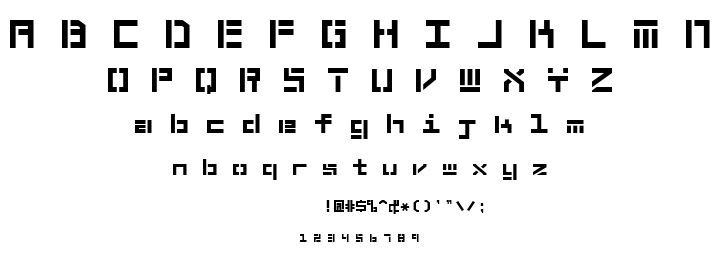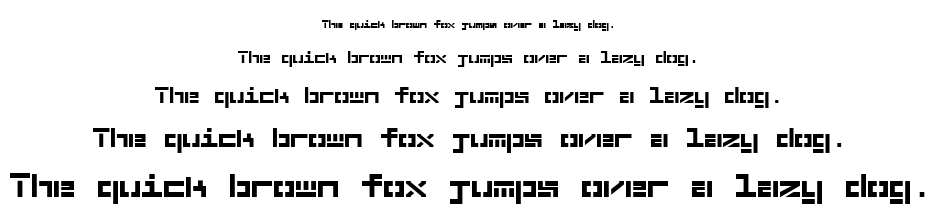
Braciola MS Font
Braciola Monospace is an innovative, no-curves, tape made-like font, perfect for contemporary and strong titling.Braciola monospace stencil is a special version of braciola extrabold design to be used to draw with stencils.For commercial licence please visit our site:more info and sample